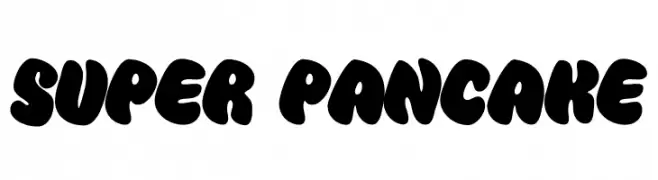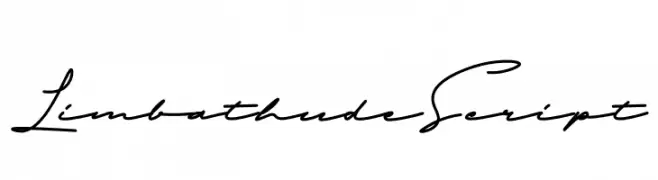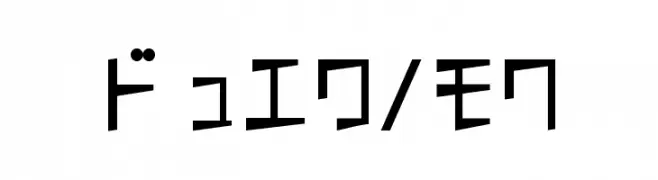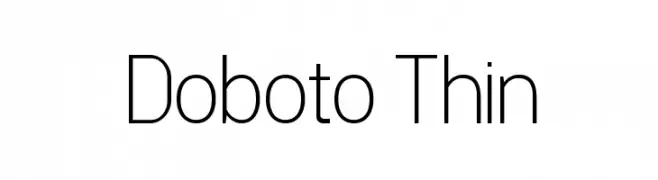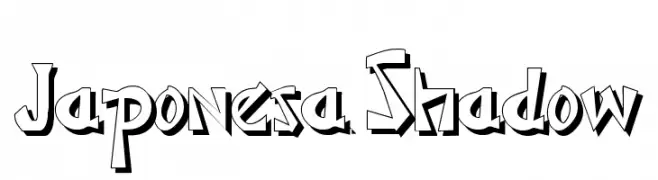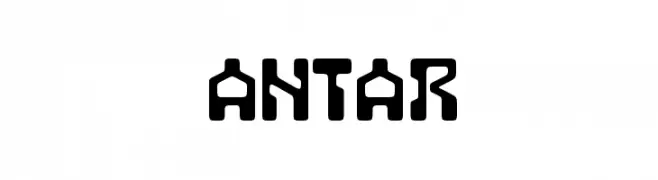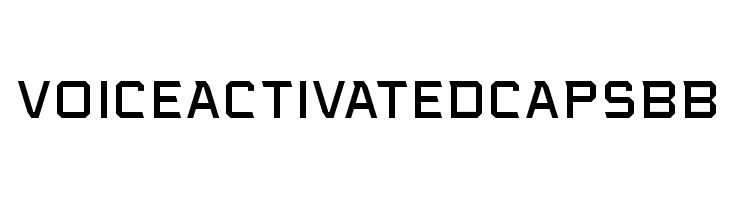
A playful, bold handwritten font with flowing, connected letters.
A playful, bold font with rounded, bubbly characters perfect for fun and whimsical designs.
A dog-themed dingbat font with illustrated canine heads.
A fluid and elegant script font with a dynamic, cursive style.
An ornate, tattoo-inspired script font with decorative flourishes.
A bold, geometric font with angular, modern design.
A modern, thin sans-serif font with a clean and minimalist design.
A bold, artistic font with a modern vintage aesthetic and sharp serifs.